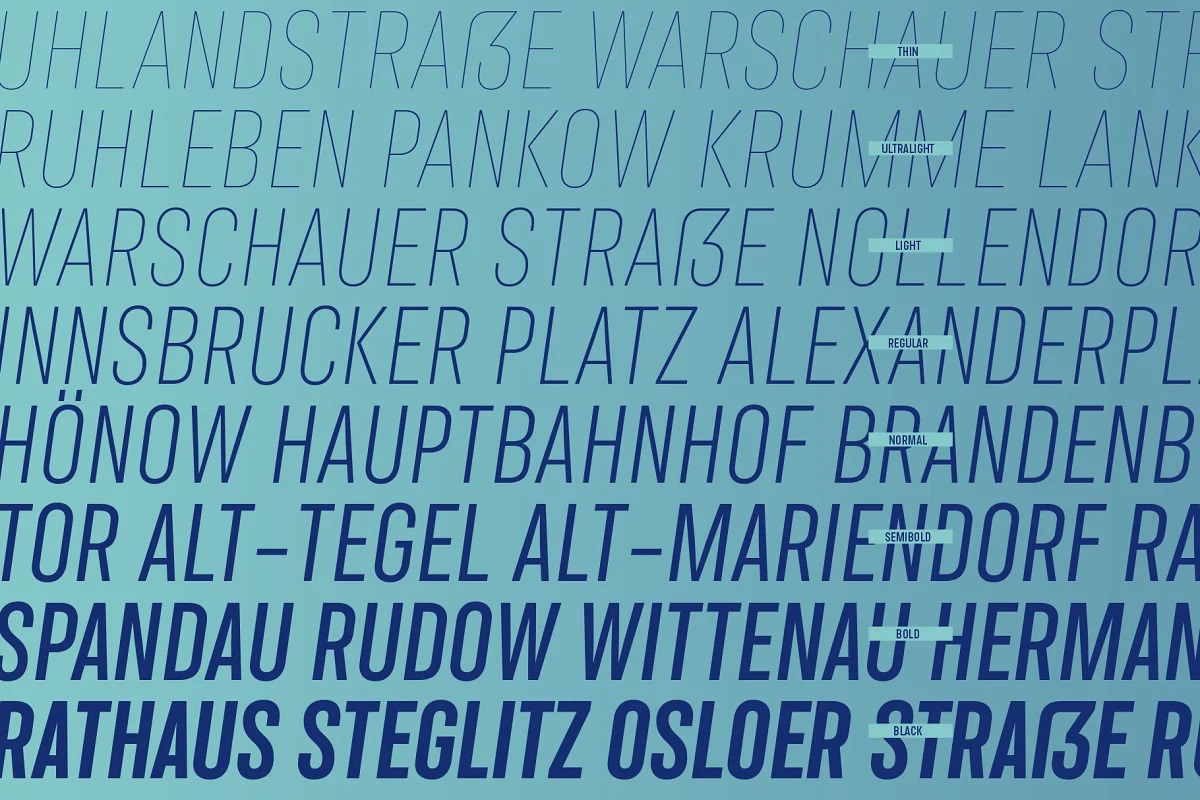
StadtMitte Font Family
StadtMitte Sans Serif Font
This is a geometric sans serif font family with a touch of pointy elegance, designed by Letritas. It is inspired on a reinterpretation of the Berlin’s vernacular signs and characters created under the DIN 1451 norm.
By the early 1900s, german painters and sign makers started to spread this unmistakable way of font drawing used back then on freight trains. Such letter design was both very easy to read and build, hence it started to quickly spread until it became a standard in 1936 for highway signage.
Stadtmitte is not aimed to be yet another literal remake of those drawings but rather a revision of shapes and concepts that seeks to transport us to Germany’s industrial way of creating and displaying information, therefore being suitable for a wide scope of design uses, considering its own nature and different available weights.